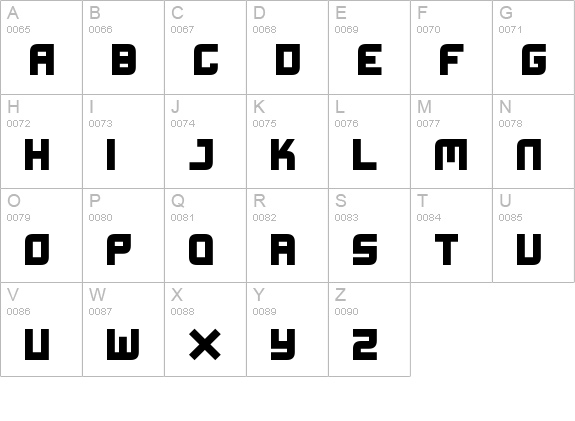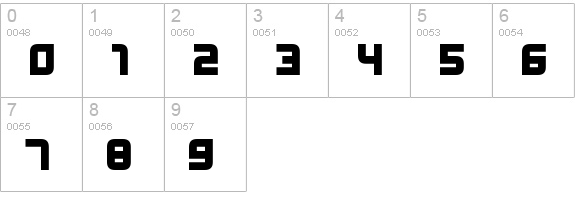
Xifiction Font Details
Xifiction font is a captivating and versatile typeface that blends modern design elements with a touch of whimsy. Its unique letterforms exude a sense of creativity and playfulness, making it perfect for a wide range of projects, from branding to editorial design. The smooth curves and sharp angles of Xifiction create a harmonious balance that is both striking and easy on the eyes. One of the best features of Xifiction font is that it is available for free download at FontsMarket.com. This means you can easily access this stylish and expressive typeface to enhance your designs without any cost. Whether you're a seasoned designer looking to add a fresh twist to your work or a budding creative exploring new possibilities, Xifiction font is a must-have addition to your font collection. Download it today and unleash your imagination with this stunning typeface.